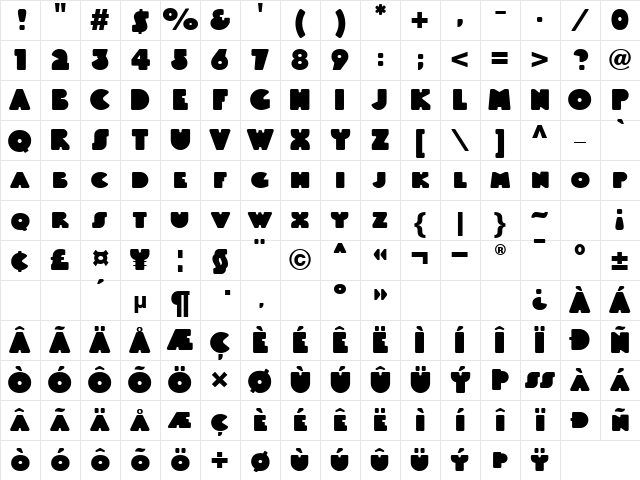
LTBlackWhiteHeadline Normal
Design Context for LTBlackWhiteHeadline
LTBlackWhiteHeadline is a composed and adaptable typeface that performs quietly and consistently across a wide range of design contexts.
Pro Tip: Use LTBlackWhiteHeadline in both headline and body roles to test its range before committing to a single application.